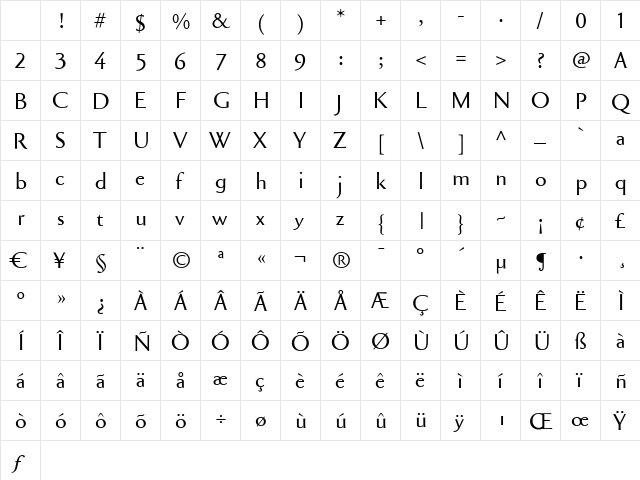
Complete Cimiez Roman glyph index. Displaying only characters natively supported by Cimiez Roman font.
Cimiez is a composed and adaptable typeface that performs quietly and consistently across a wide range of design contexts.
Who designed the Cimiez Roman font?